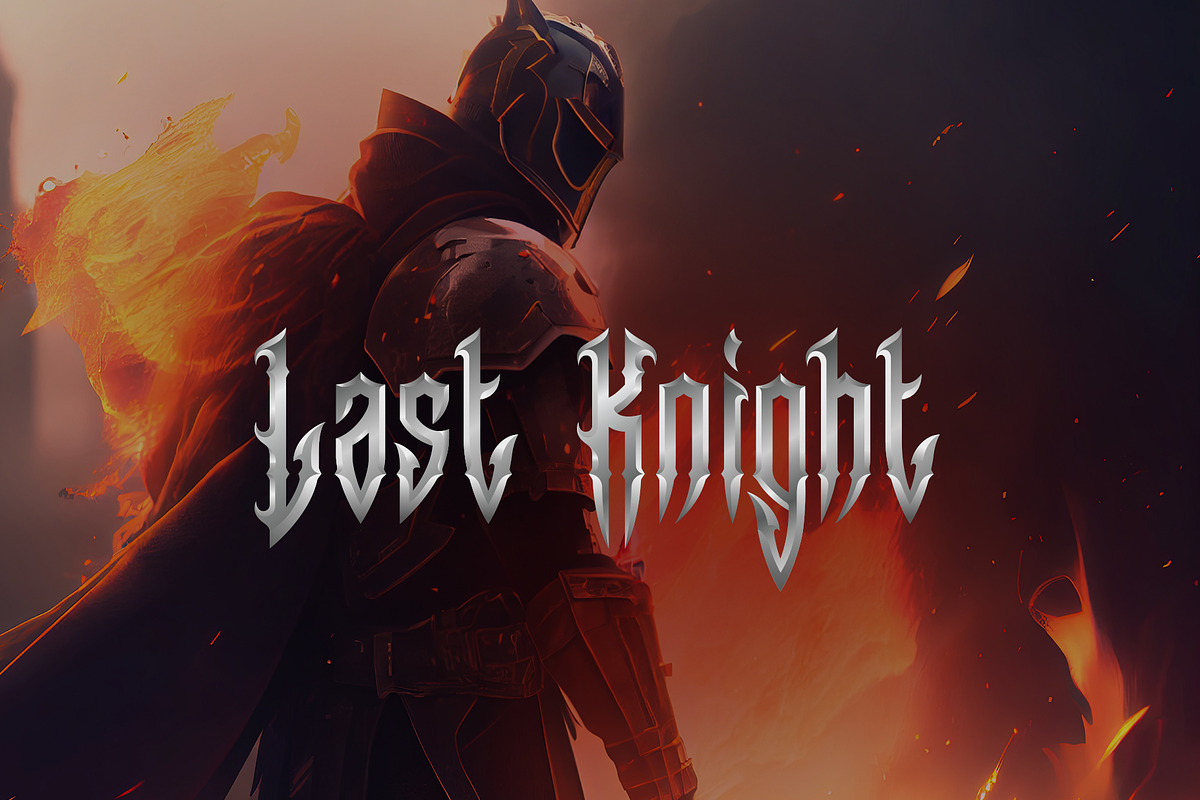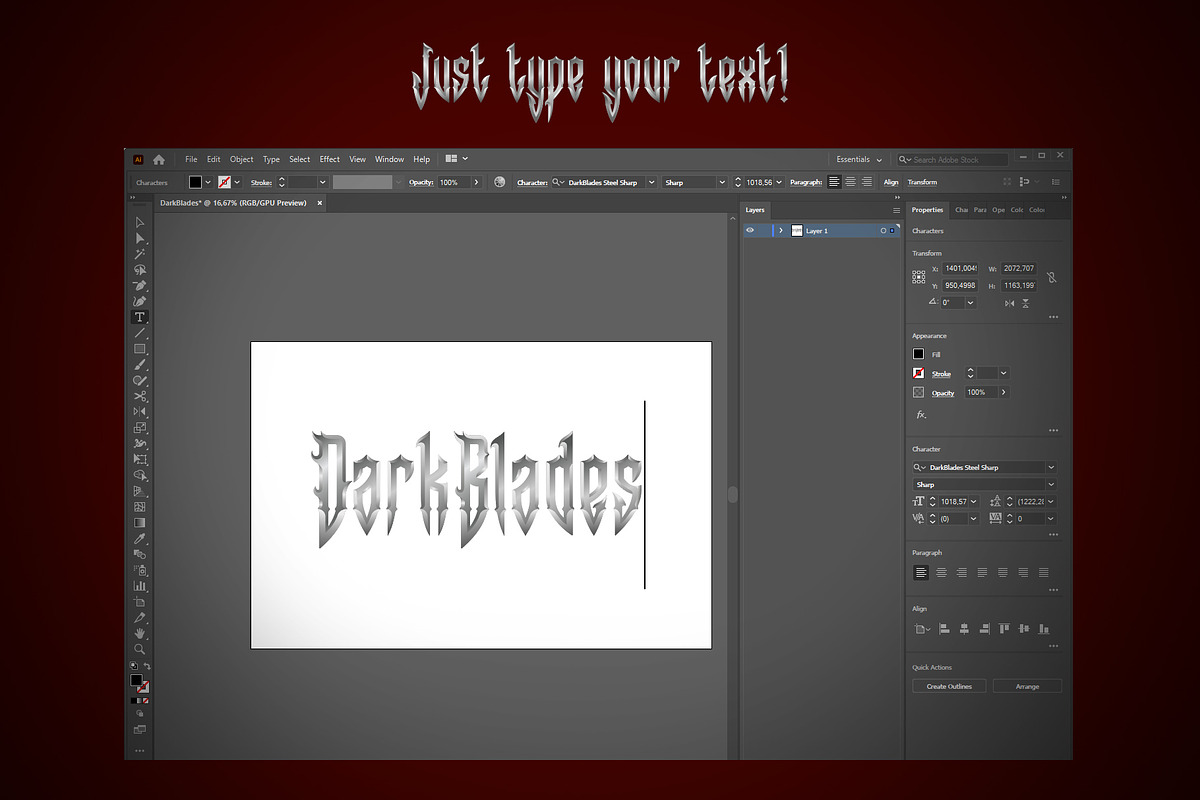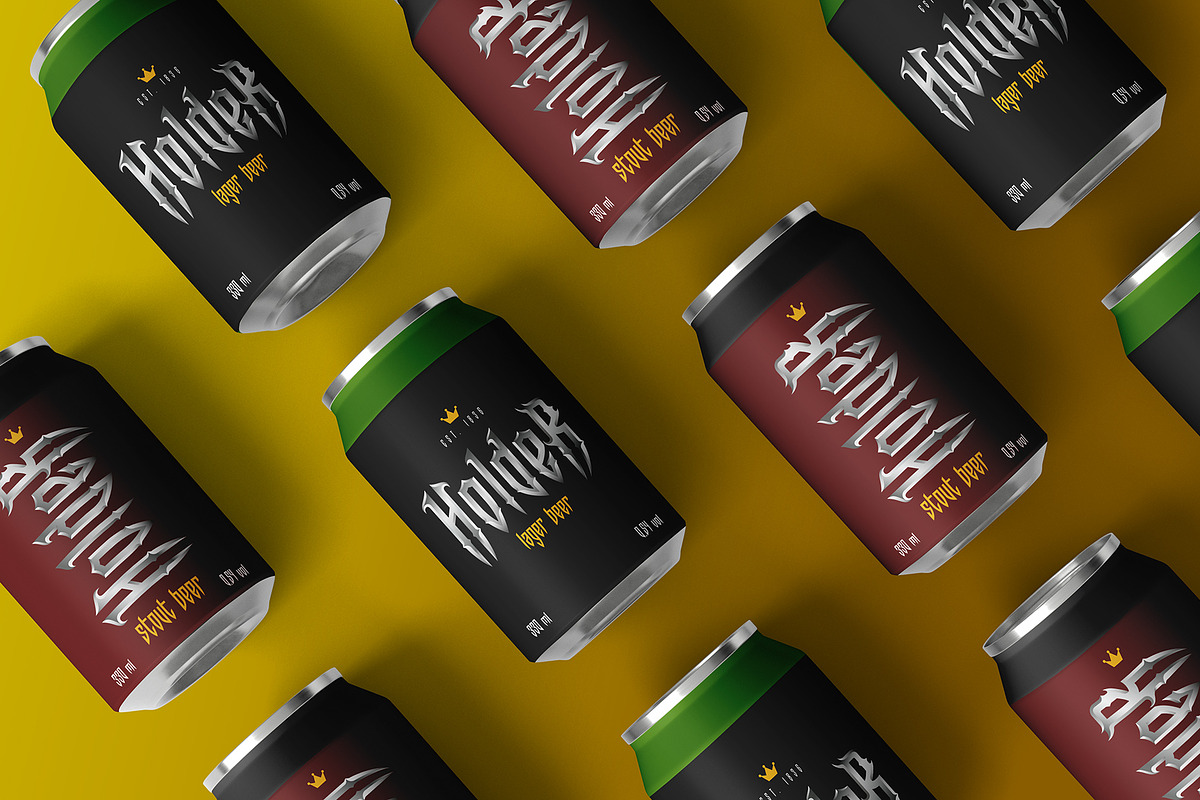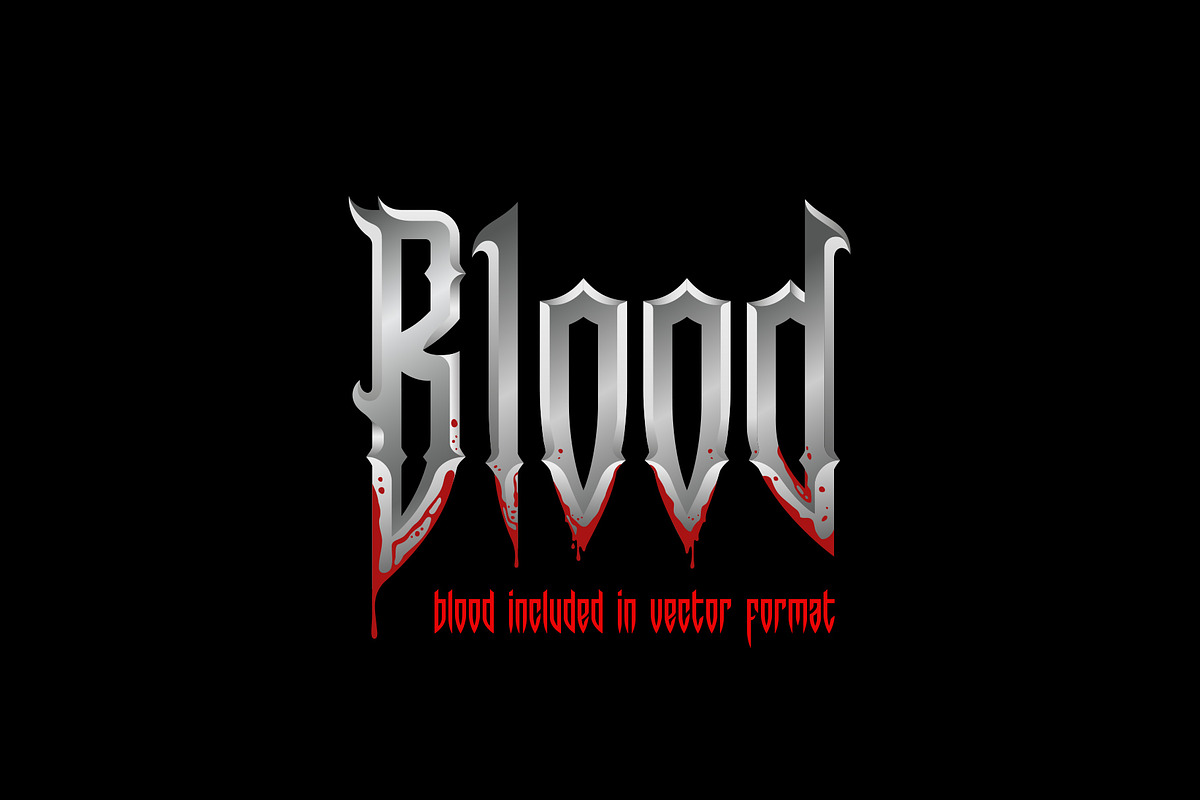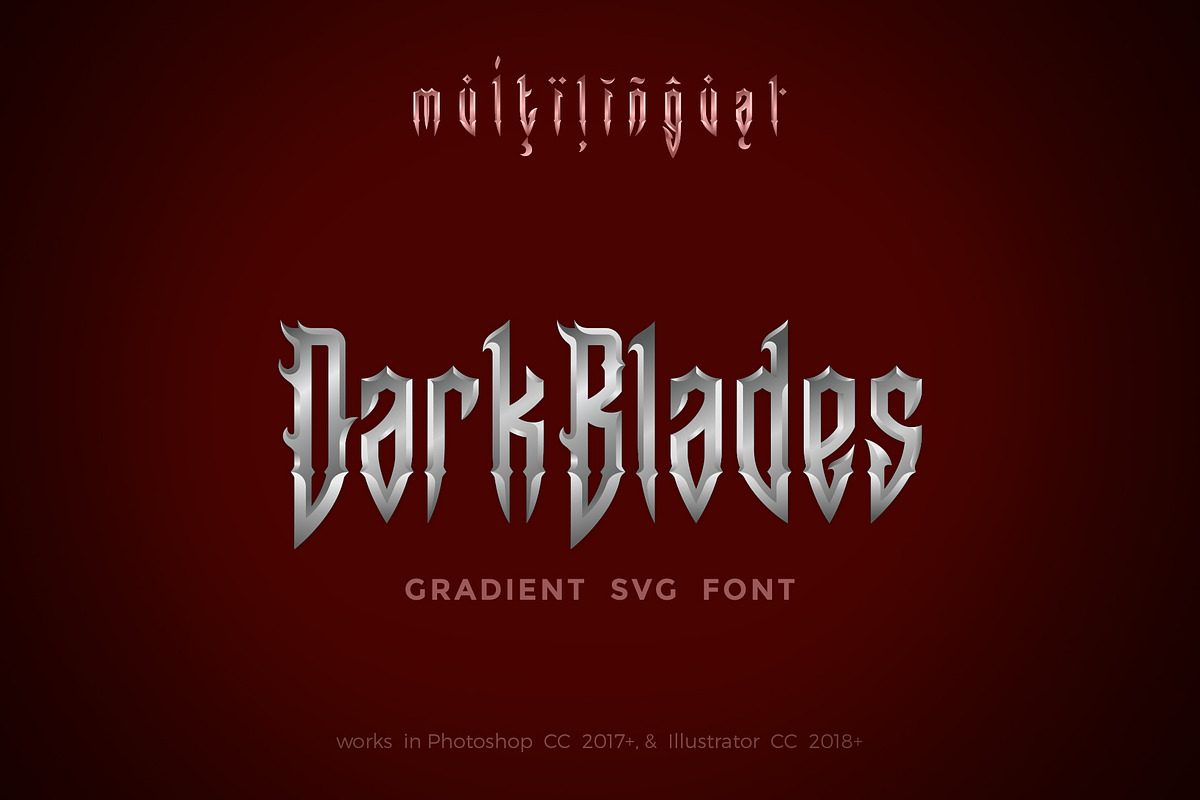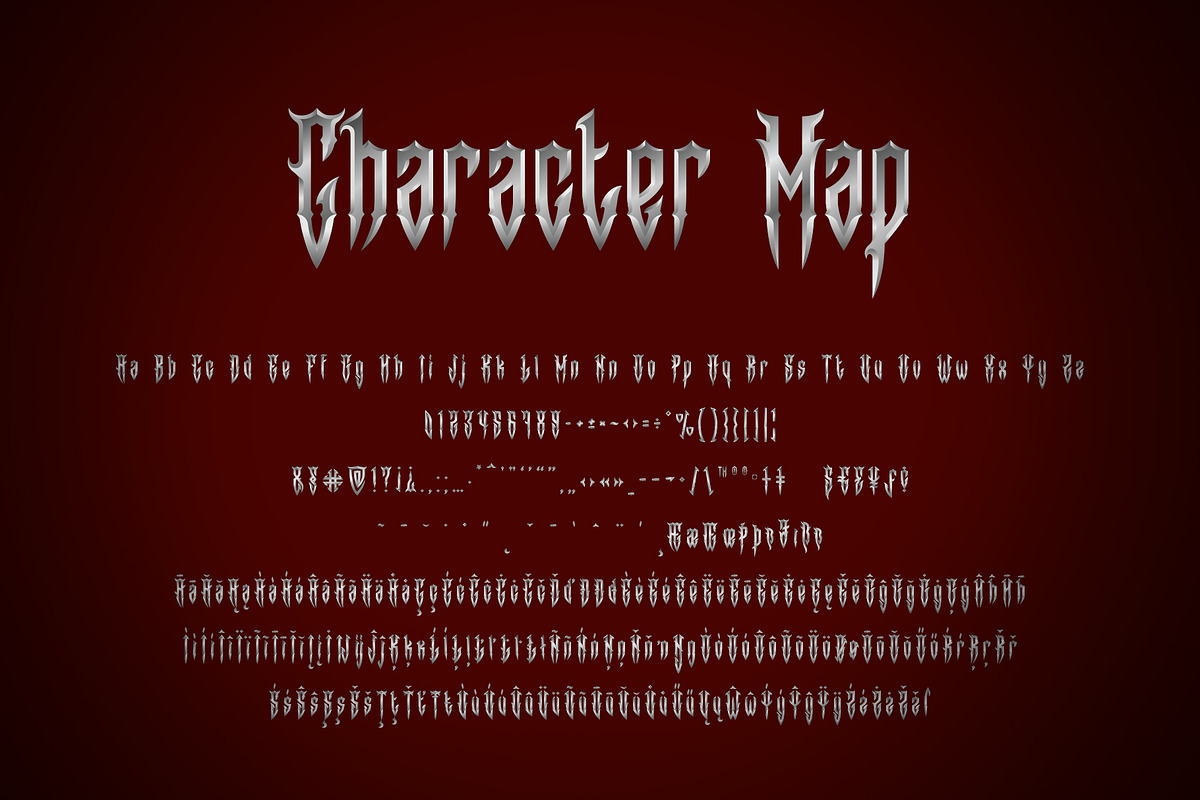
DarkBlades Steel
DarkBlades Steel is an unique vintage color gradient vector SVG font you may use in your projects just typing a text in Illustrator or Photoshop.
Designed for:
- Vintage branding (Clothes, Alcohol, Bikes, Games)
- Horror
- Music branding
- Myth: Vampires, Zombie, Halloween, Werevolves, Magic, Fantasy
- Medieval style
Well use in vintage labels, headers & titles, Posters, Street Signs and other Outdoor, Package Design.